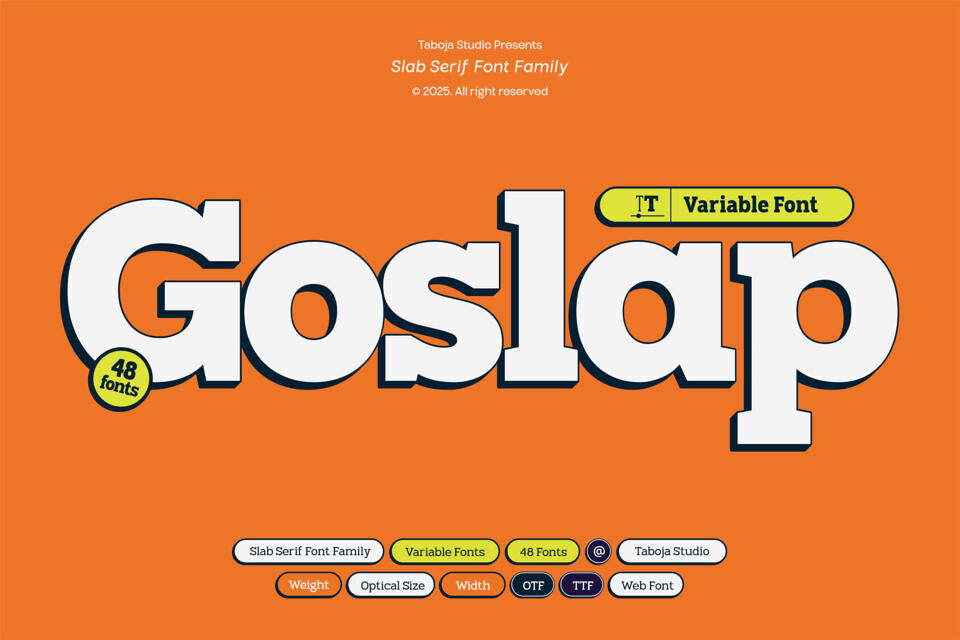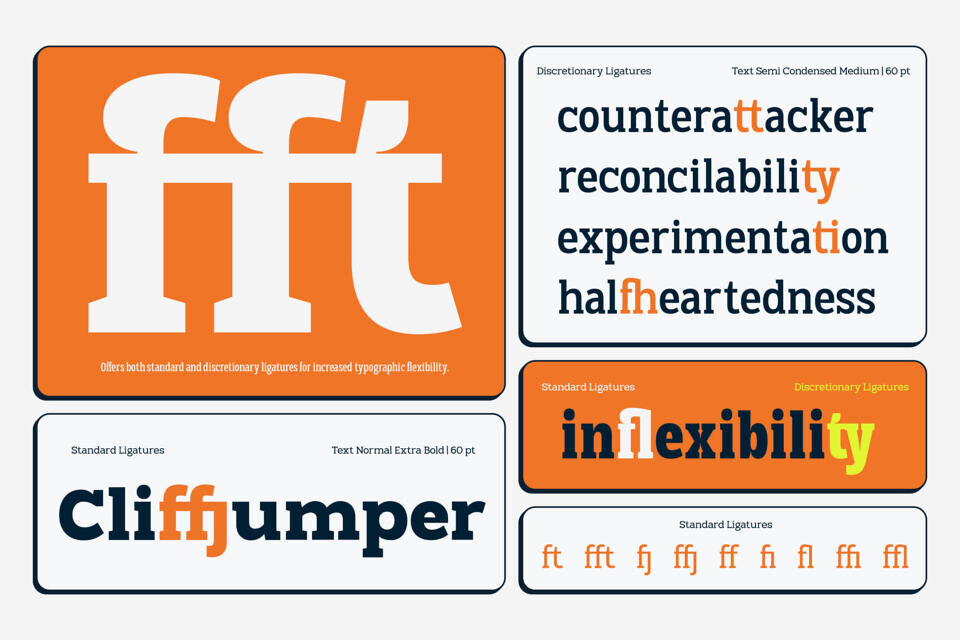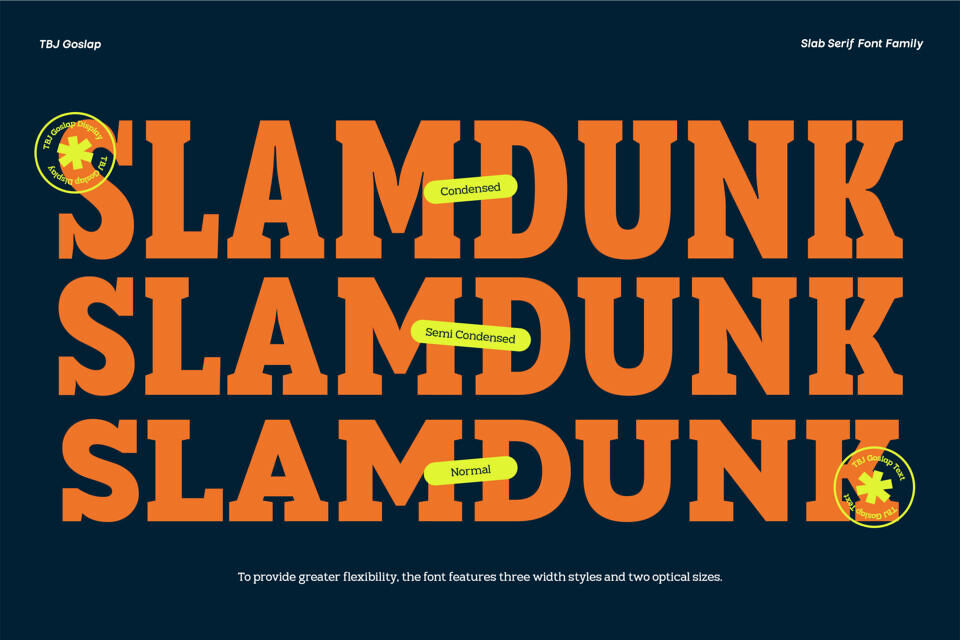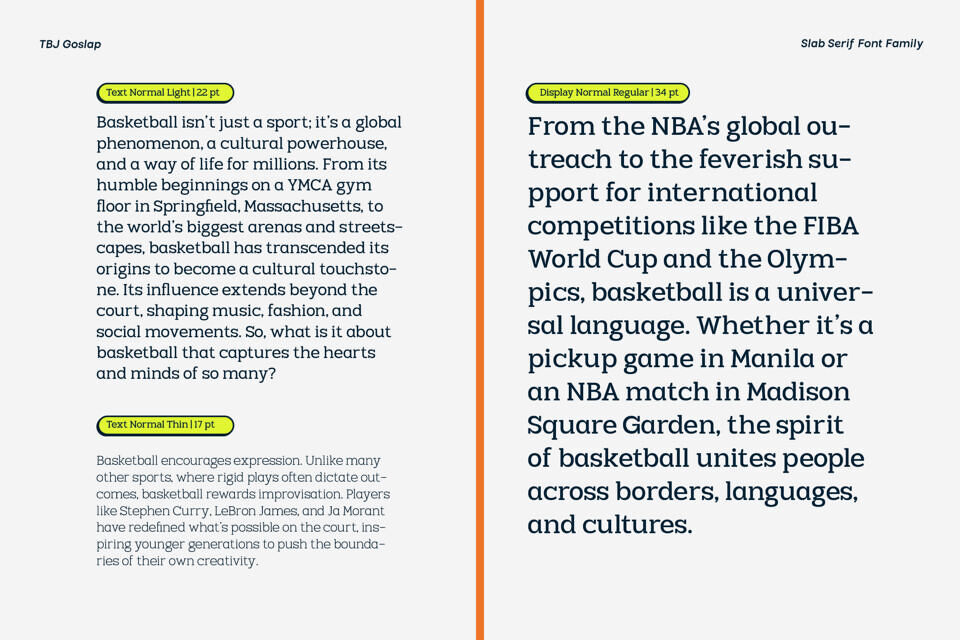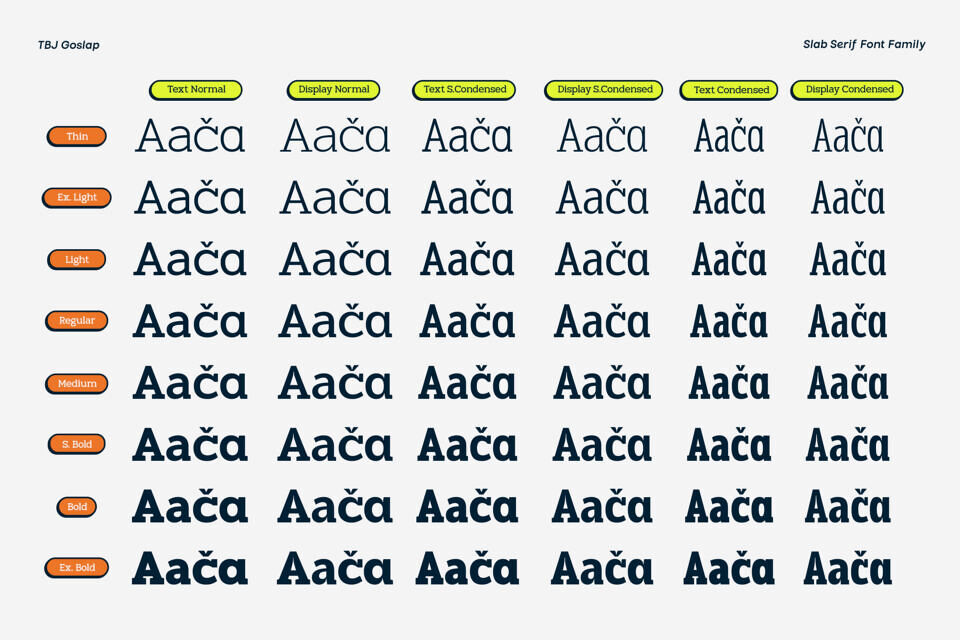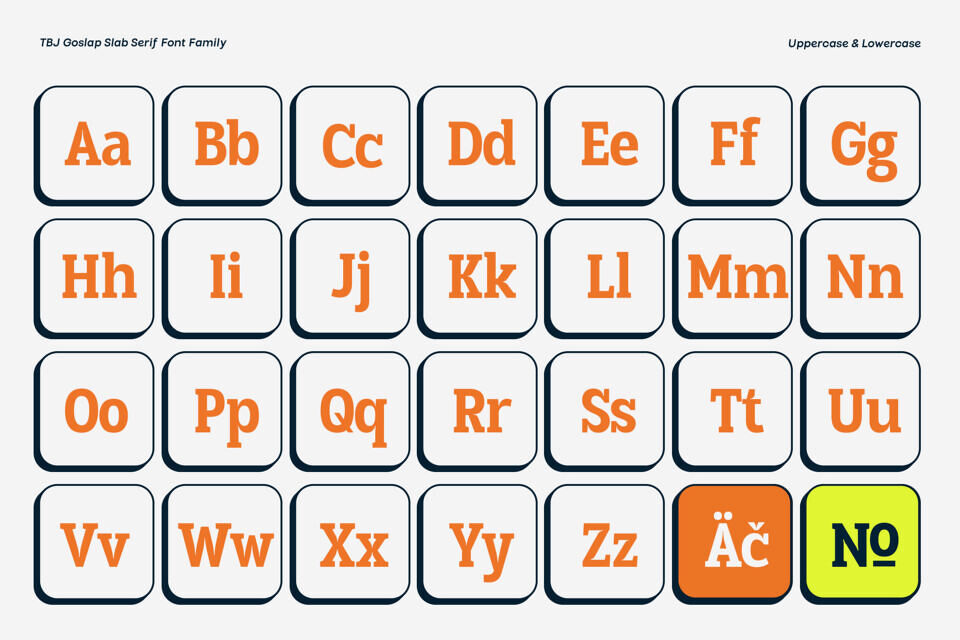
TBJ Goslap is a slab serif built around trapezoidal serifs instead of the rigid rectangular serifs typical of the category. That single structural choice moves the design away from the industrial, historicist read most slab serifs carry.
The Bold and Extra Bold weights were deliberately refined to avoid the vintage western aesthetic that heavy slab weights tend to fall into, keeping a commanding presence for headlines without leaning into retro territory. This makes the family suited for posters, sports branding, packaging, and any identity system that needs a slab serif with range rather than a single fixed cut.